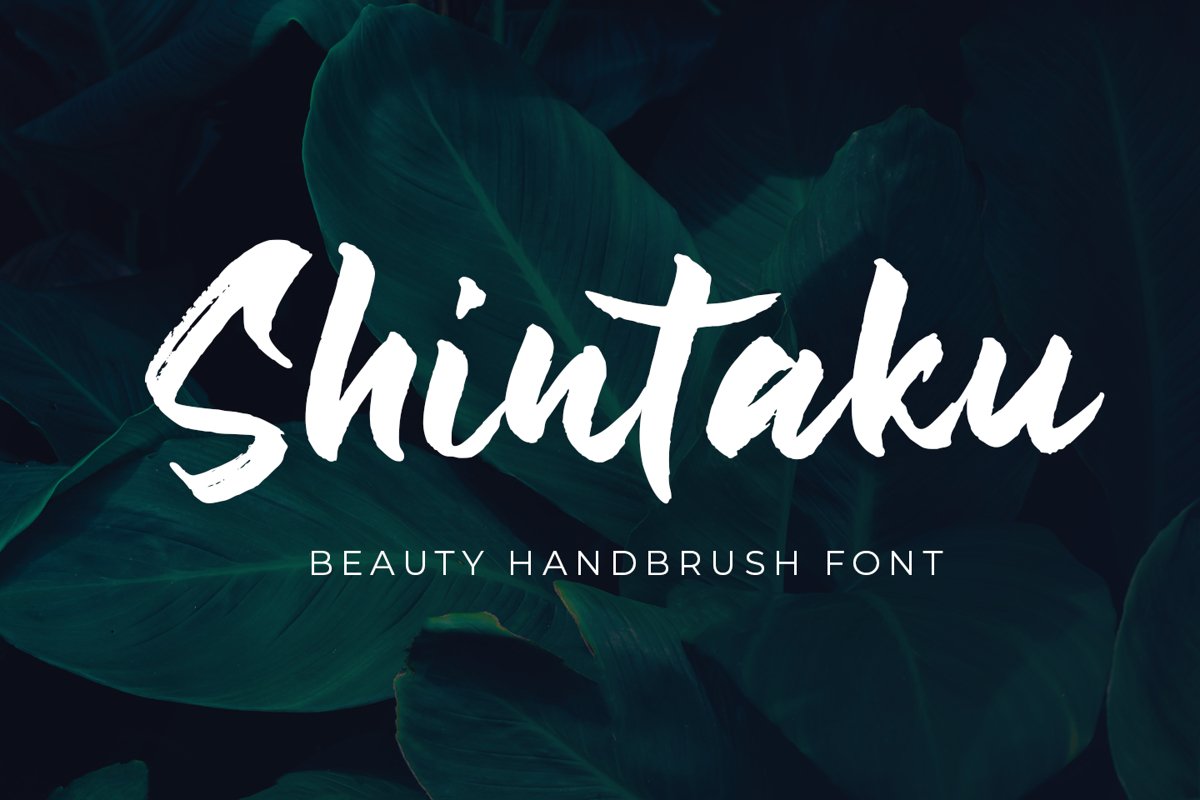
Shintaku - Handbrush Font -
Shintaku
introducing
Shintaku - Beauty Handbrush Font -
a Font made with a real brush pen to keep the natural taste
it is great for branding, packaging, logo, quote, and more